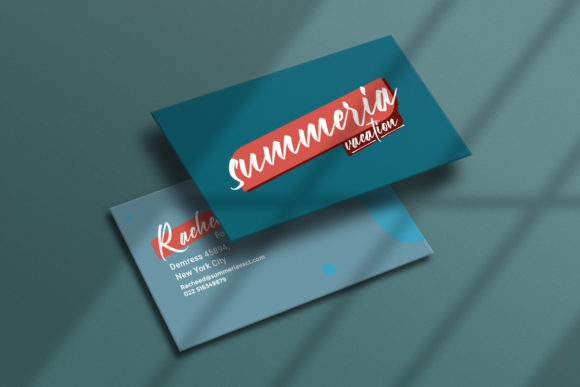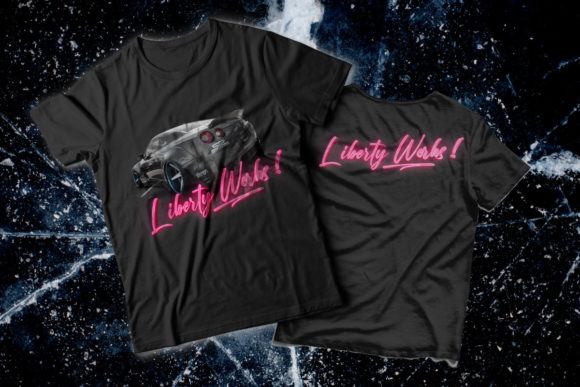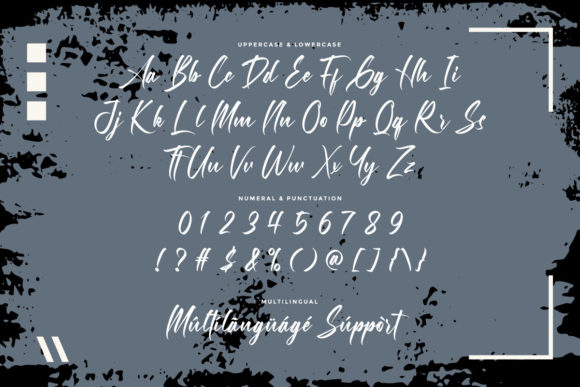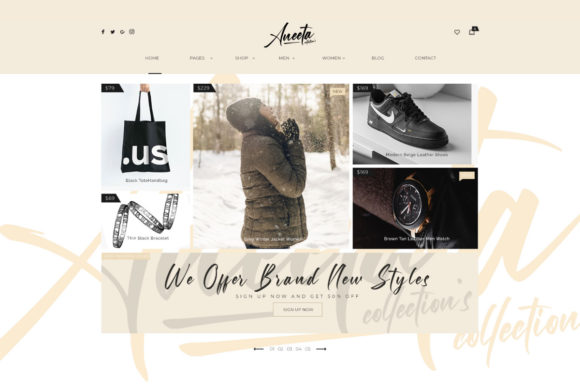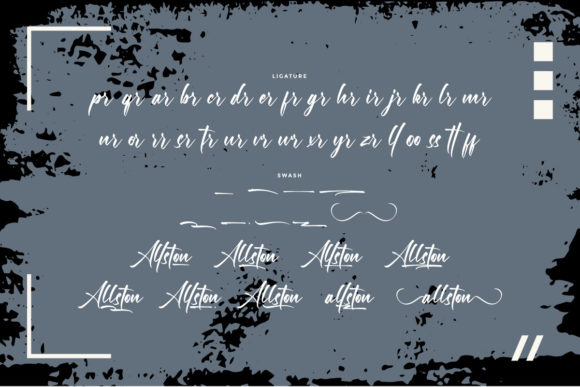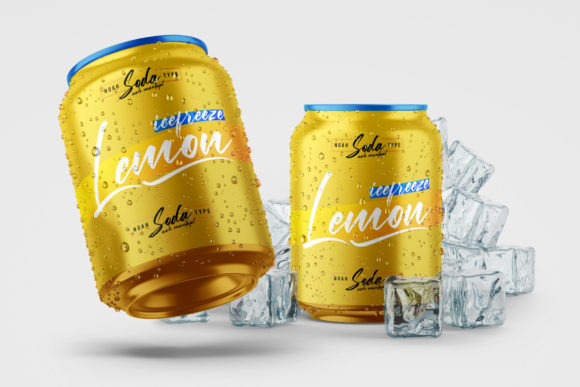
Discover the Elegance of Allston Font: A Modern Script Font for Creative Designs
In the world of typography, a good font can make all the difference in creating stunning designs. For designers, crafters, and artists, finding the perfect font that combines elegance, versatility, and uniqueness can be a daunting task. However, if you’re looking for a font that can elevate your designs to the next level, look no further than the Allston Font. This beautiful script font is carefully crafted to bring a touch of sophistication and whimsy to your creations.
What Makes Allston Font Stand Out?
Allston is a modern script font that boasts characters carefully designed to mimic the look of natural sketches. Its modern yet elegant style makes it perfect for a wide range of applications, from wedding and engagement invitations to branding, movie and book titles, music album covers, and festival promotions. The font’s versatility is one of its most striking features, allowing designers to use it for various projects, including social media posts, business cards, and more.
Perfect for Creative Professionals and Crafters
Allston Font is an excellent choice for creative professionals, such as florists, hairstylists, makeup artists, and event organizers. Its beautiful handwritten touch can add a personal and unique flair to any design, making it perfect for:
- Wedding and engagement invitations
- Branding and packaging designs
- Movie and book titles
- Music album covers
- Festival promotions
- Social media posts
- Business cards and stationery
Key Features of Allston Font
So, what makes Allston Font so special? Here are some of its key features:
- PUA Encoded: Allston Font is PUA encoded, which means you can easily access all the glyphs and swashes with ease. This feature makes it simple to customize your designs and add a personal touch.
- Modern Characters: The font’s modern characters are carefully crafted to create a natural, sketch-like look that’s both elegant and whimsical.
- Versatile Style: Allston Font’s incredibly versatile style makes it perfect for a wide range of applications, from formal to informal designs.
- Experiment with Swashes: With its PUA encoding, you can easily access the font’s swashes and glyphs to add a unique touch to your designs.
In conclusion, Allston Font is a stunning script font that’s perfect for designers, crafters, and artists looking to add a touch of elegance and whimsy to their creations. Its modern characters, versatile style, and PUA encoding make it an excellent choice for a wide range of applications. Whether you’re creating wedding invitations, branding designs, or social media posts, Allston Font is sure to impress. So, fall in love with its incredibly versatile style, and use it to create spectacular designs that will leave a lasting impression.